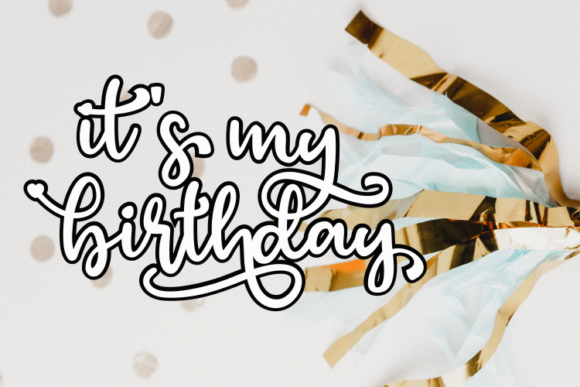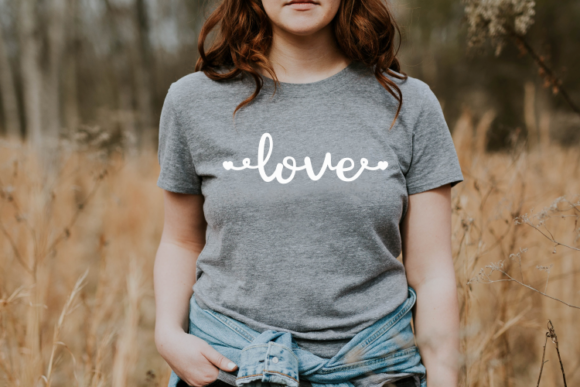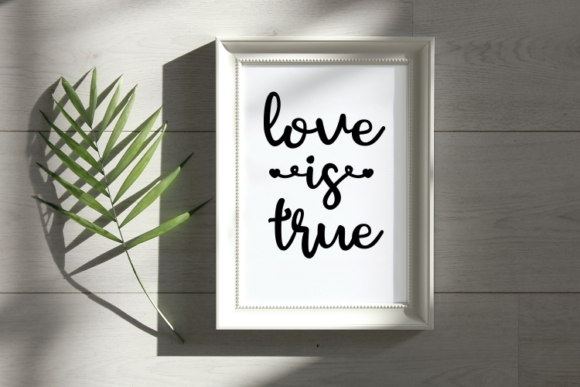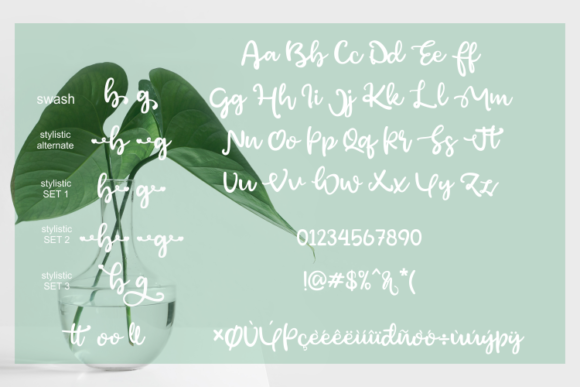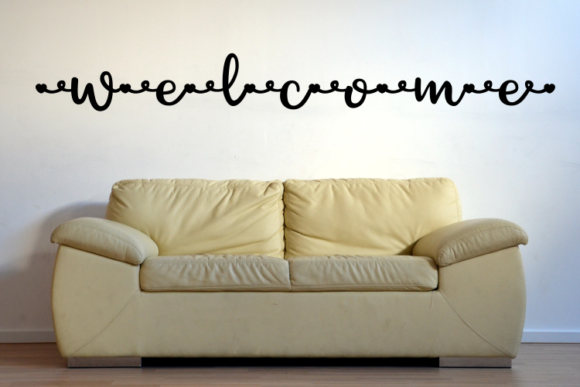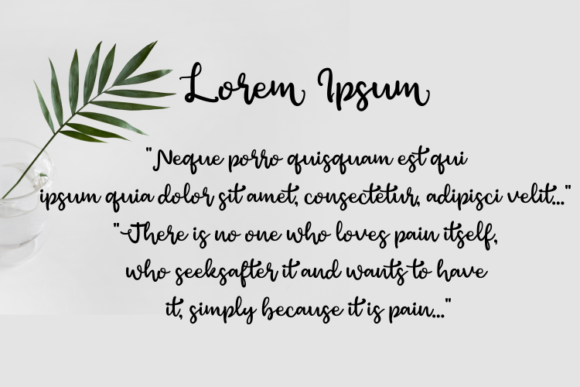
Introducing Green Afocado: The Magical Handwritten Font for Elegant Designs
Are you a designer or crafter looking for a unique and elegant font to elevate your creative projects? Look no further than Green Afocado, a beautiful handwritten font that exudes sophistication and charm. With its authentic feel and touch of magic, Green Afocado is the perfect choice for creating stunning wedding invitations, gorgeous stationery art, eye-catching social media posts, and adorable greeting cards.
The Story Behind Green Afocado
Green Afocado is more than just a font – it’s a work of art that has been carefully crafted to bring a touch of elegance to your designs. The font’s creator has poured their heart and soul into designing a unique and captivating typeface that is sure to capture the attention of your audience. With its whimsical and romantic feel, Green Afocado is the perfect choice for designers and crafters who want to add a personal touch to their work.
What Makes Green Afocado So Special?
So, what sets Green Afocado apart from other fonts? Here are just a few features that make this font truly special:
- Handwritten with love: Green Afocado is a handwritten font that has been carefully crafted to mimic the look and feel of traditional handwriting. Each letter has been meticulously designed to create a sense of authenticity and elegance.
- Elegant and sophisticated: Green Afocado is the perfect choice for designers and crafters who want to add a touch of sophistication to their work. The font’s elegant feel makes it ideal for creating wedding invitations, stationery art, and other formal designs.
- Magical and whimsical: Green Afocado has a touch of magic that sets it apart from other fonts. The font’s whimsical feel makes it perfect for creating eye-catching social media posts, cute greeting cards, and other playful designs.
- Versatile and adaptable: Green Afocado is a versatile font that can be used for a wide range of design projects. Whether you’re creating a wedding invitation or a social media post, this font is sure to adapt to your needs.
Using Green Afocado for Your Design Projects
Green Afocado is an incredibly versatile font that can be used for a wide range of design projects. Here are just a few ideas to get you started:
- Wedding invitations: Green Afocado is the perfect choice for creating beautiful and elegant wedding invitations. The font’s sophisticated feel makes it ideal for formal wedding designs.
- Stationery art: Add a touch of elegance to your stationery art with Green Afocado. The font’s whimsical feel makes it perfect for creating gorgeous stationery art that will stand out.
- Social media posts: Green Afocado is a great choice for creating eye-catching social media posts. The font’s playful feel makes it perfect for creating engaging and interactive designs.
- Greeting cards: Create adorable greeting cards with Green Afocado. The font’s whimsical feel makes it perfect for creating cute and playful designs.
Tips and Tricks for Using Green Afocado
Here are just a few tips and tricks to help you get the most out of Green Afocado:
- Experiment with different colors: Green Afocado looks great in a variety of colors. Experiment with different colors to find the one that works best for your design.
- Play with font sizes: Green Afocado is a versatile font that can be used at a variety of font sizes. Experiment with different font sizes to create visual interest and hierarchy.
- Add embellishments: Green Afocado looks great with embellishments such as flowers, leaves, and other decorative elements. Add a touch of whimsy to your design with these elements.
| Author | artype07 |
Green Afocado is a magical handwritten font that is sure to elevate your design projects. With its elegant feel, whimsical touch, and versatility, this font is perfect for designers and crafters who want to add a personal touch to their work. Whether you’re creating wedding invitations, stationery art, social media posts, or greeting cards, Green Afocado is the perfect choice. So why wait? Download Green Afocado today and start creating stunning designs that will capture the attention of your audience.